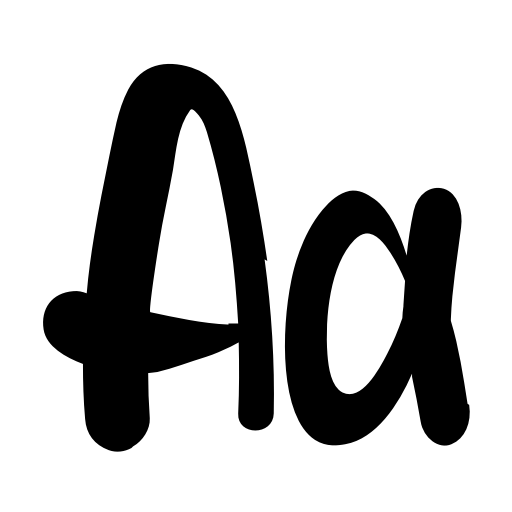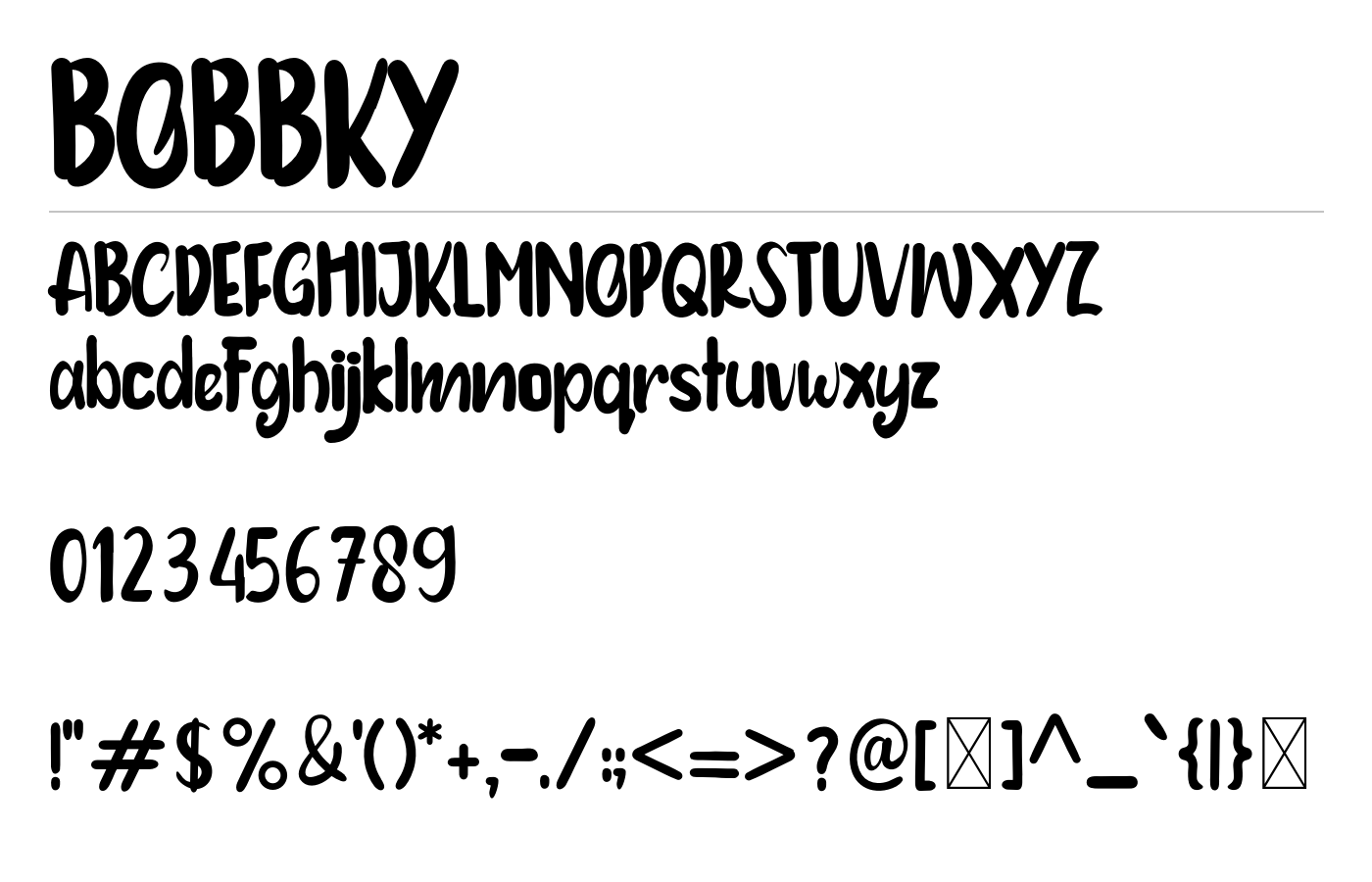
BOBBKY is a playful, bold sans serif font with a hand-drawn, casual feel. Its irregular, rounded letterforms and lively strokes make it perfect for creative and informal designs that want to convey friendliness and energy. This font works well in fun branding, children's projects, posters, and headlines where a personal, approachable vibe is needed.
BOBBKY Font
About BOBBKY Font